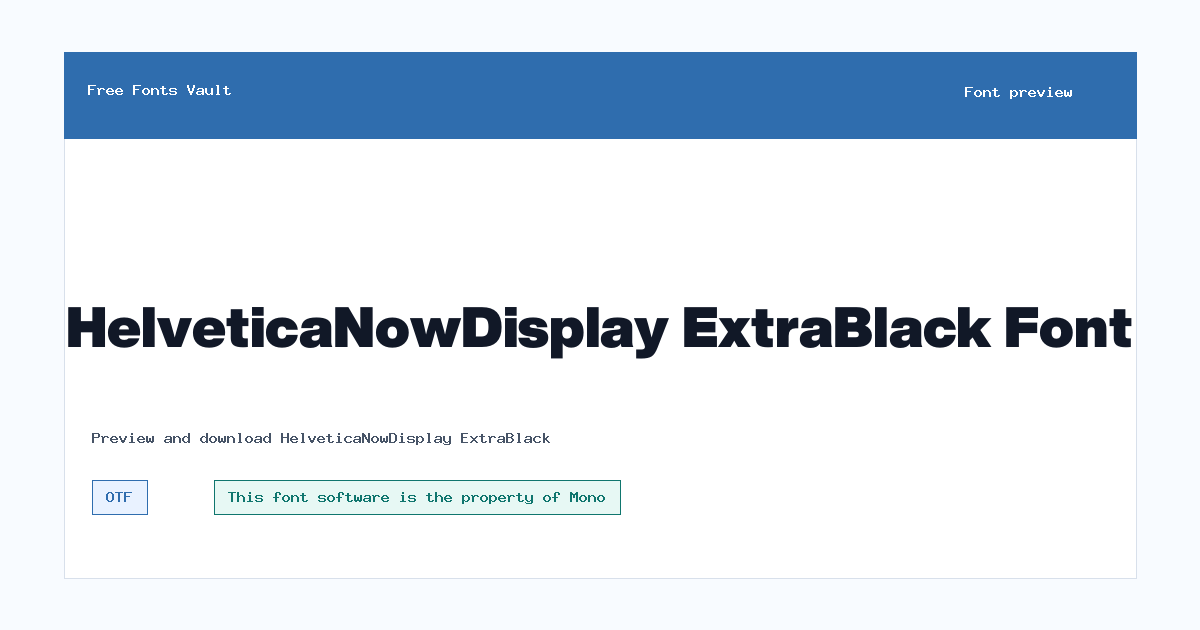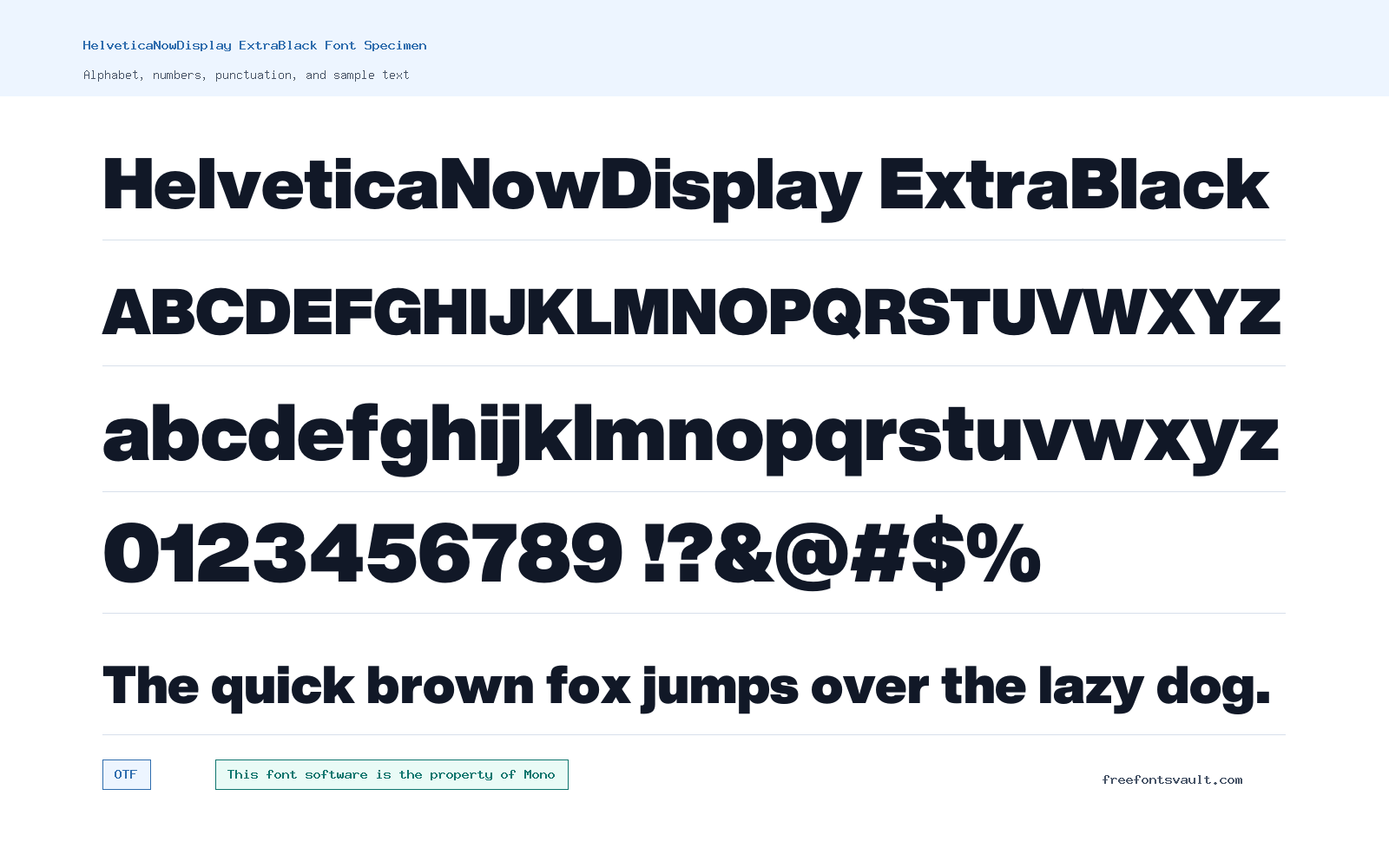
HelveticaNowDisplay ExtraBlack
- Designer Project Originators: Otmar Hoefer, Jrg Schweinsberg, Jrgen Siebert, Erik Spiekermann Designers: Jim Ford, Steve Matteson, Charles Nix, Tom Rickner, Alexander Roth, Juan Villanueva, Jan Hendrik Weber, Terrance Weinzierl Production Team: Thomas Caldwell, De
HelveticaNowDisplay ExtraBlack is a very heavy display cut from the Helvetica Now Display family, suited to short, high-impact text where weight and clean structure matter more than long-form reading.
HelveticaNowDisplay ExtraBlack has the broad, tight, modern sans-serif feel many visitors expect from a Helvetica-style display face, but in an especially bold weight. The ExtraBlack style is built for large settings: headlines, posters, cover text, hero banners, title cards, and short typographic statements. Its strength is mass and clarity. The letters carry a dense visual presence, so even a few words can fill a layout with a confident, direct tone. Because this page is for a specific ExtraBlack OTF file, treat it as a display option rather than a full family package with multiple weights.
- ExtraBlack display weight with a dense, clean sans-serif appearance for short headline text.
- Best handled at large sizes where the heavy letterforms have enough room to stay readable.
- Large headlines, title graphics, posters, and bold editorial layouts.
- Hero text, short promotional lines, thumbnails, and social media visuals.
- Minimal layouts that need a strong sans-serif wordmark-like treatment without decorative effects.
For the best result, start with short text and a large point size. Increase tracking slightly if counters or inner spaces begin to feel crowded. Avoid long paragraphs, small captions, and dense UI text, because the ExtraBlack weight can become tiring or hard to read at smaller sizes. If you are preparing client work or public branding, keep a copy of your license terms with the project files.
What kind of designs suit this font?
It suits large, short text such as headlines, posters, title graphics, thumbnails, and bold display layouts. It is not a good first choice for long reading text.